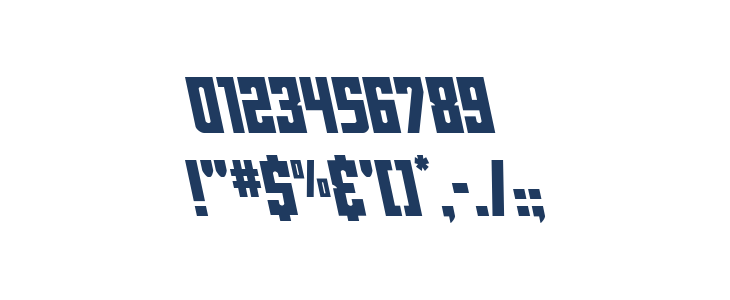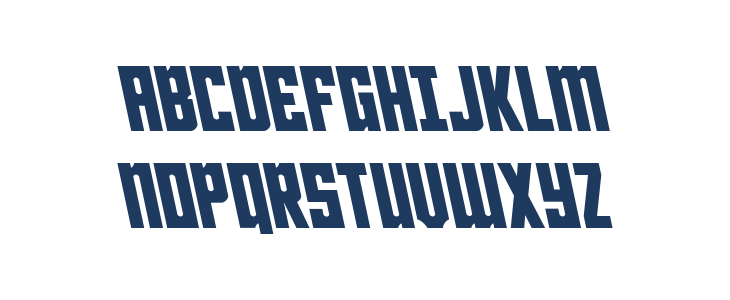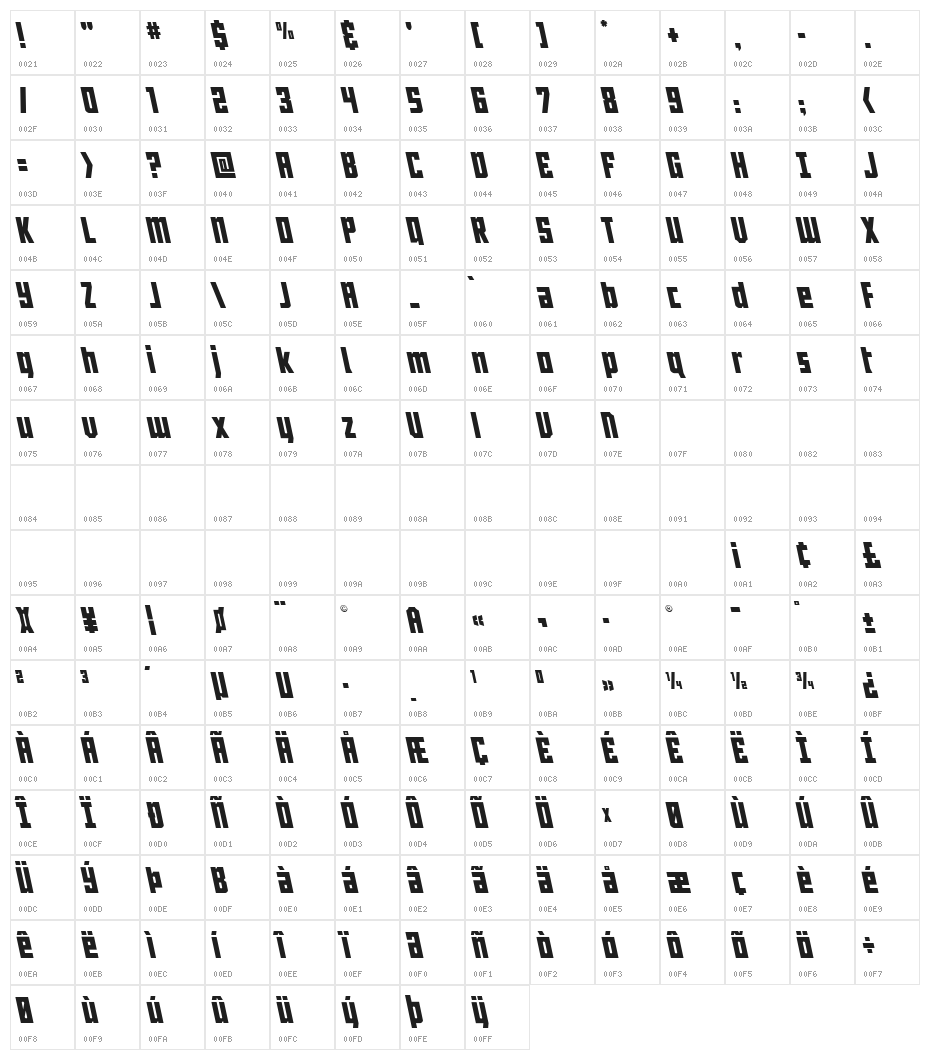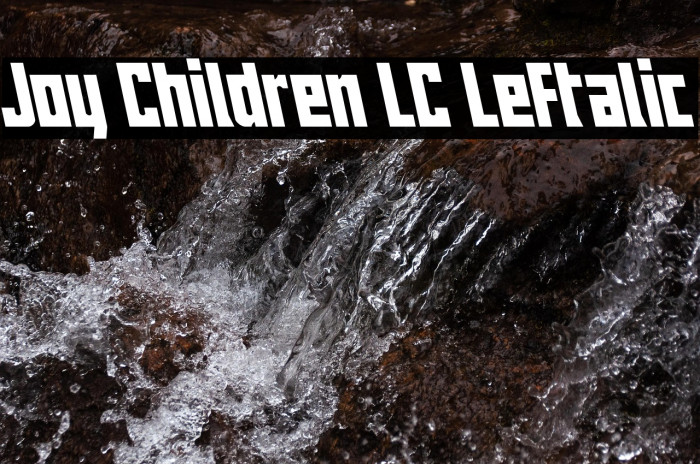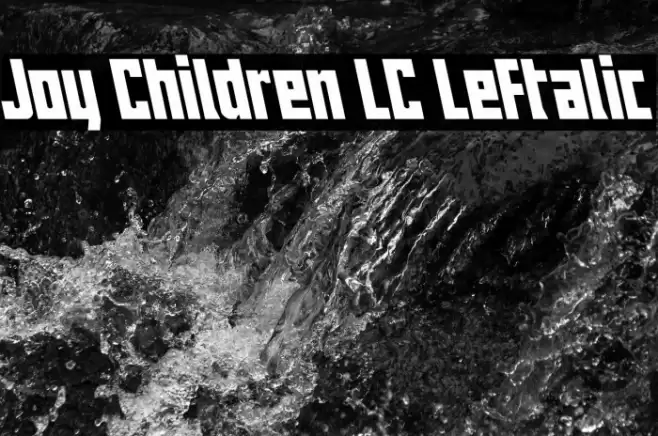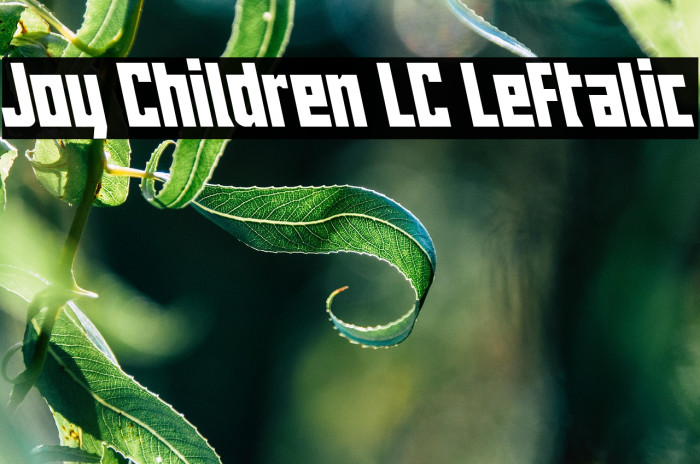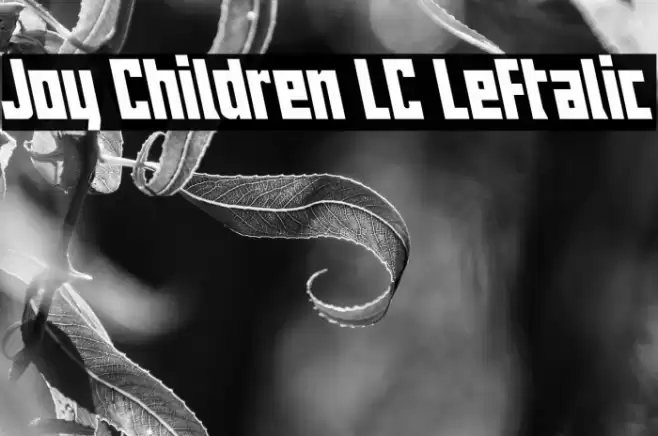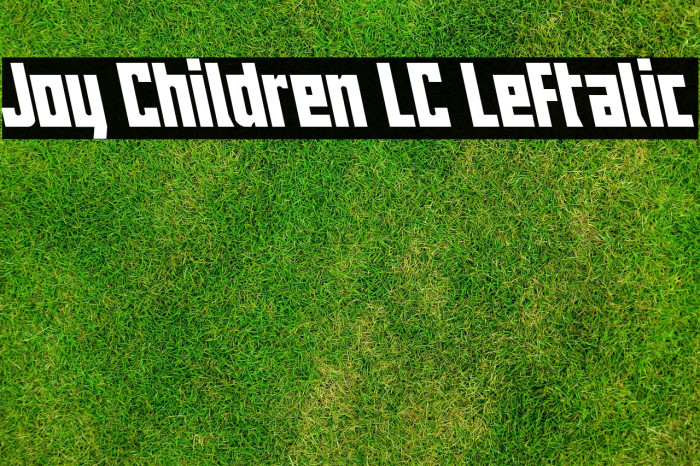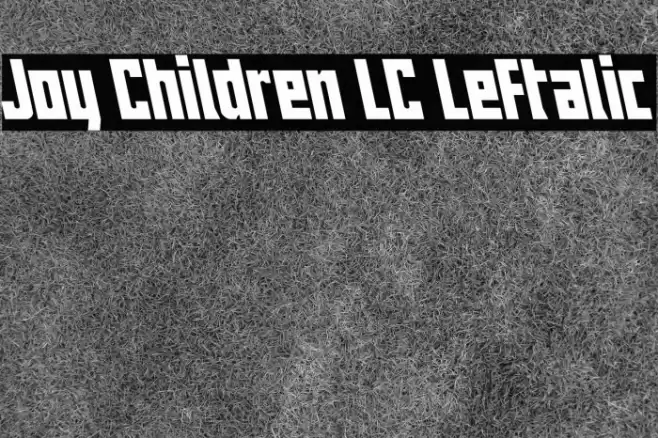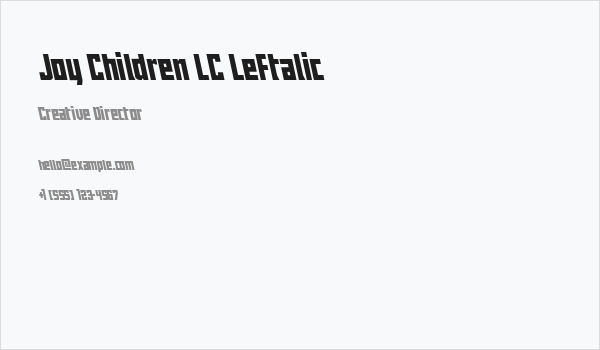
Joy Children LC Leftalic Font
Joy Children LC Leftalic Description
Bold, blocky, geometric sans-serif font with a strong, modern appearance.
| Overall Style | Modern, Geometric |